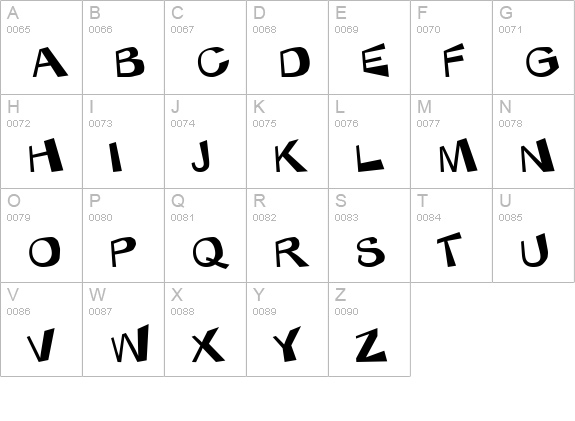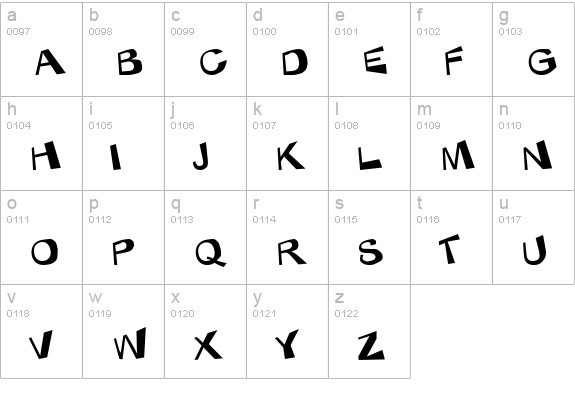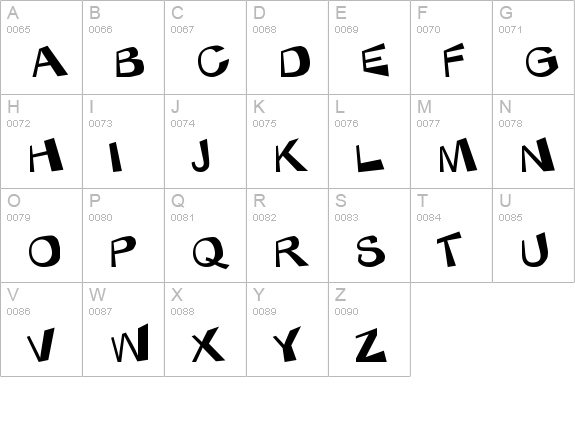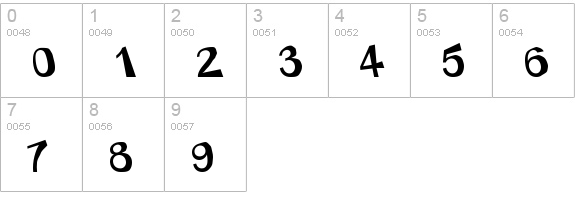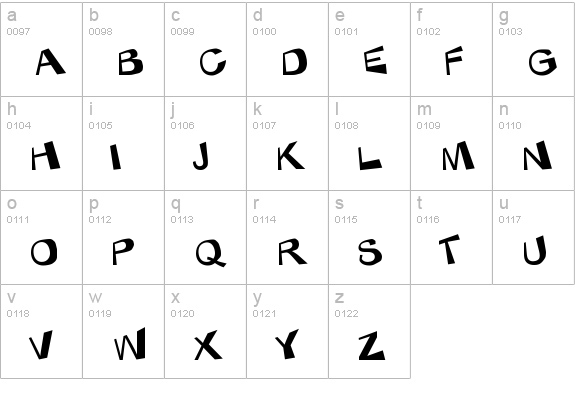
KaBlam! Font Details
Introducing KaBlam! font, a bold and dynamic typeface that will bring a burst of energy to any design project. With its strong and edgy letterforms, KaBlam! font is perfect for headlines, logos, posters, and more. This font exudes a sense of excitement and enthusiasm, making it ideal for projects that require a punch of creativity. Its unique design captures the essence of explosive impact, instantly grabbing attention and leaving a lasting impression. But what sets KaBlam! font apart is its availability as a free download. Yes, you read that right – this incredible font is freely available to download at FontsMarket.com. Now, you can infuse your designs with the power of KaBlam! font without breaking the bank. Whether you're a professional designer looking to add some flair to your work or an aspiring creator seeking a font that speaks volumes, KaBlam! font is your ultimate solution. Its versatility and boldness make it a go-to choice for various design projects, from branding to advertising. So, don't miss out on this opportunity to make a statement with your typography. Download KaBlam! font today from FontsMarket.com and let your creativity explode onto the scene.